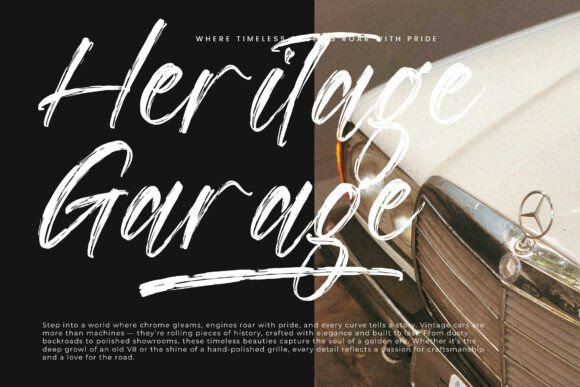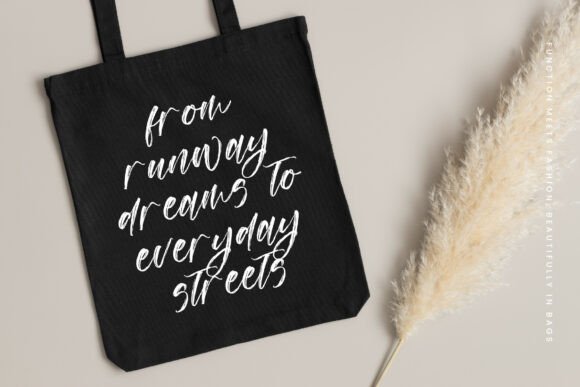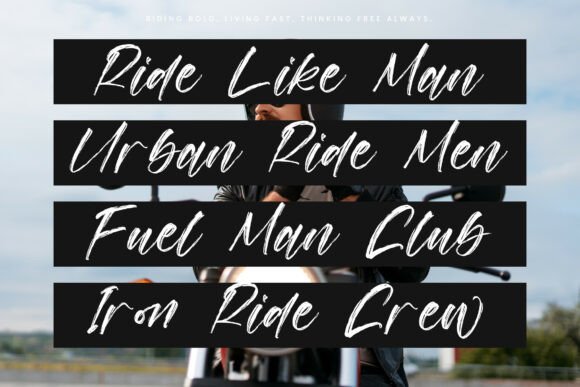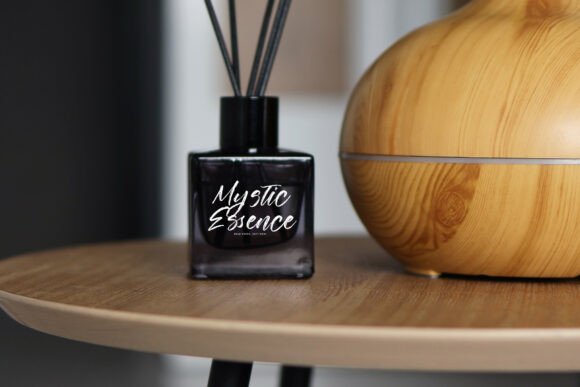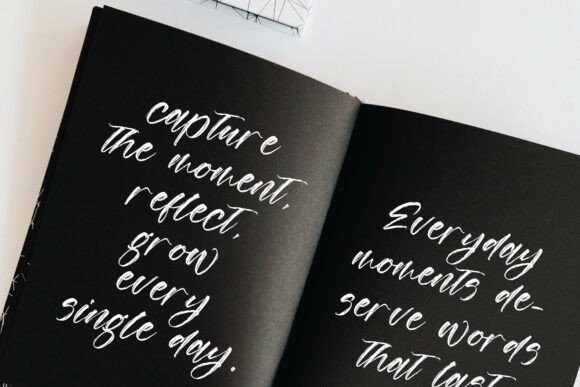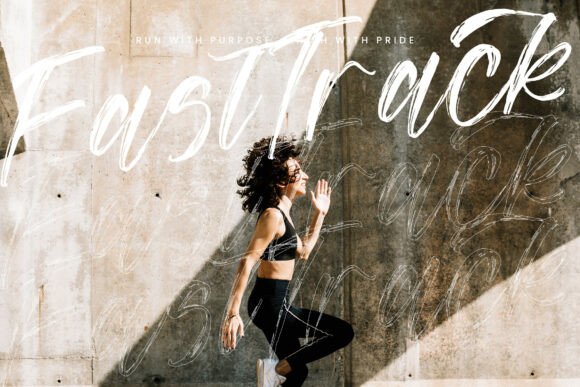
Introducing Goldensblush Regular Font: The Perfect Blend of Bold and Elegant
Are you a designer seeking a font that combines the raw, textured look of a handwritten brush with the elegance and sophistication of a modern typeface? Look no further than Goldensblush Regular Font. This stunning modern handwritten brush font is designed to bring a unique and artistic tone to your designs, making it perfect for a wide range of applications.
The Characteristics of Goldensblush Regular Font
Goldensblush Regular Font is a true standout in the world of typography. Its bold, textured strokes and natural, free-flowing style make it an ideal choice for designers who want to add a touch of raw elegance to their work. The font’s expressive letterforms, dynamic curves, and organic brush details bring a handcrafted authenticity to any design, making it perfect for those who value uniqueness and character.
One of the key benefits of Goldensblush Regular Font is its versatility. This font works seamlessly across a wide range of design applications, including branding, packaging, social media graphics, posters, invitations, and editorial layouts. Whether you’re creating a bold headline or a creative logo, Goldensblush Regular Font delivers a distinctive and artistic tone that makes your work stand out.
Ease of Use
Goldensblush Regular Font is a perfect choice for designers and crafters who value uniqueness and character in their work. Whether you’re creating bespoke wedding invitations, designing a logo for a new business, or simply looking for a font that will add a touch of elegance to your social media graphics, Goldensblush Regular Font is an excellent choice.
Bringing a Handcrafted Authenticity to Your Designs
One of the standout features of Goldensblush Regular Font is its ability to bring a handcrafted authenticity to your designs. The font’s organic brush details and textured strokes give it a truly unique and handmade feel, making it perfect for designers who want to add a personal touch to their work.
Key Features of Goldensblush Regular Font
- Modern handwritten brush font with bold, textured strokes
- Natural, free-flowing style perfect for adding elegance and sophistication to your designs
- Expressive letterforms, dynamic curves, and organic brush details
- Versatile aesthetic works seamlessly across branding, packaging, social media graphics, posters, invitations, and editorial layouts
- Perfect for designers and crafters who value uniqueness and character in their work
In conclusion, Goldensblush Regular Font is a stunning modern handwritten brush font that is perfect for designers seeking a raw yet elegant vibe. With its bold, textured strokes, natural free-flowing style, and handcrafted authenticity, this font is sure to bring a unique and artistic tone to your designs. Whether you’re a seasoned designer or just starting out, Goldensblush Regular Font is an excellent choice for anyone looking to add a touch of elegance and sophistication to their work.